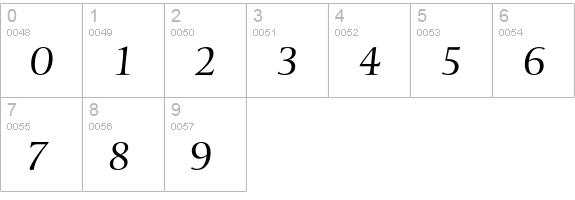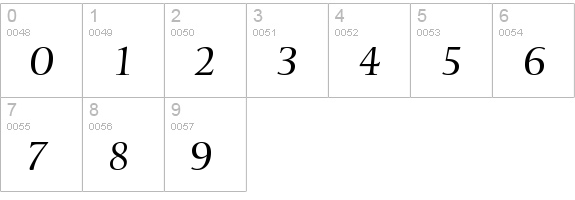
Mentor Std Light Italic Font Details
Mentor Std Light Italic is a refined, elegant, italic variant in the Mentor typeface family \xE2\x80\x94 well suited to elegant body text, refined sub-headings, and luxury branding.
The Mentor Std Light Italic font is a sophisticated and elegant typeface that exudes a sense of professionalism and refinement. Its slanted design adds a touch of modernity and flair, making it perfect for use in a variety of design projects. Whether you're working on a branding project, a website design, or a marketing campaign, this font will elevate your work to the next level. And the best part? Mentor Std Light Italic is available for free download at FontsMarket.com. This means you can easily access this high-quality font without breaking the bank. Don't miss out on the opportunity to enhance your designs with this beautiful and versatile typeface. Download Mentor Std Light Italic today and take your projects to new heights of sophistication and style.